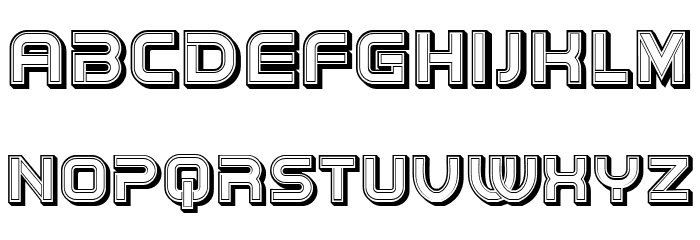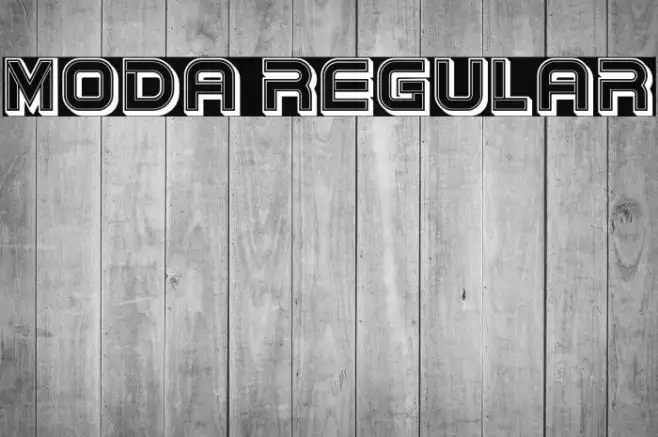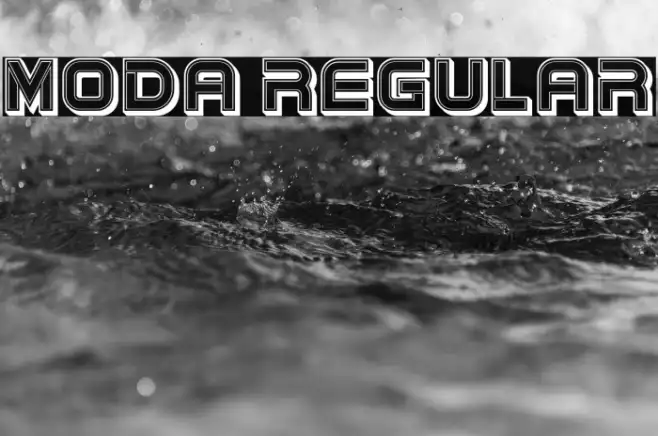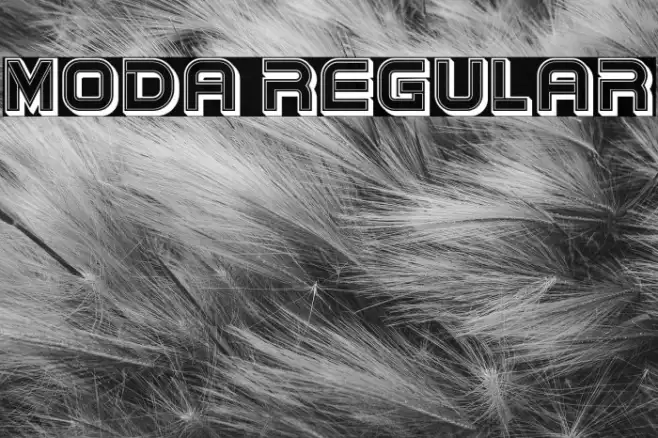
Moda Regular Font
This font features a bold, geometric design with a three-dimensional effect created by layered outlines. Each character is constructed with precision, showcasing a modern and futuristic aesthetic. The uppercase letters are uniform in height, with a consistent stroke width that adds to the font's bold appearance. The unique layering gives it a sense of depth and movement, making it stand out in any design. The font's style is both decorative and functional, suitable for a variety of creative applications.
A bold, geometric font with a three-dimensional layered effect.
- Font: Moda Regular
- Proposed Projects: Ideal for branding, posters, headlines, and any project requiring a modern, eye-catching typeface.